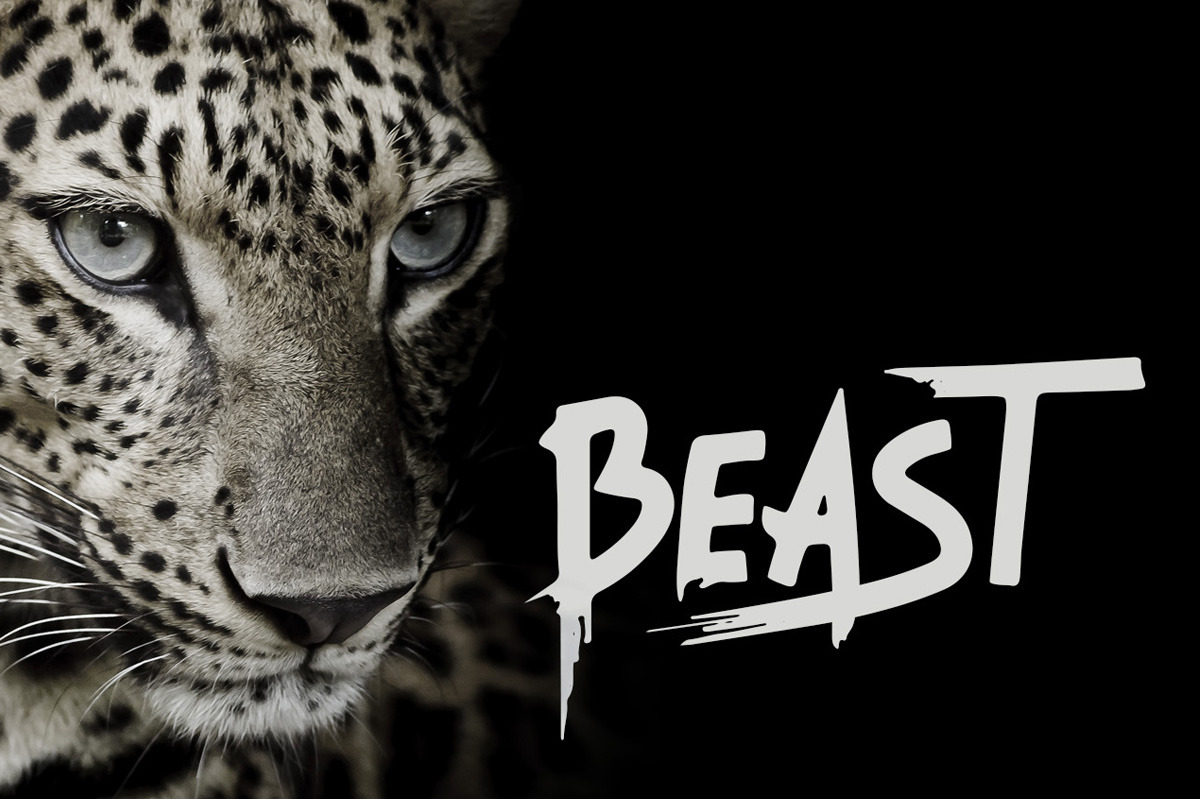
Beast - Brush Font
Beast is a brush font with uppercase letters, alternate letters, numbers and punctuation. Some letters have alternate versions which you can toggle with Caps Lock.